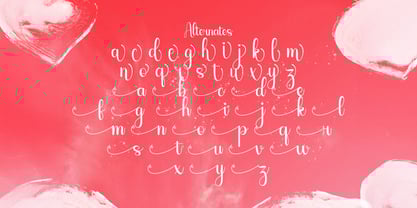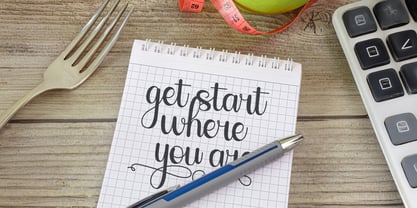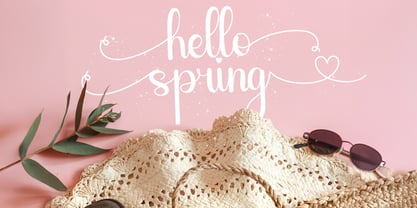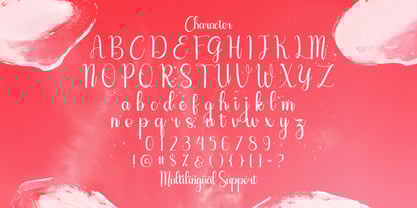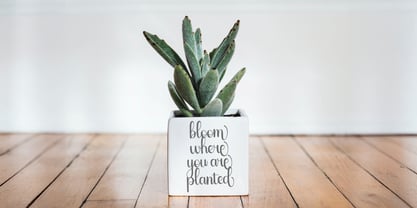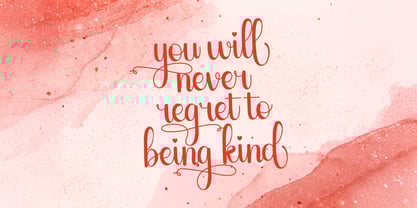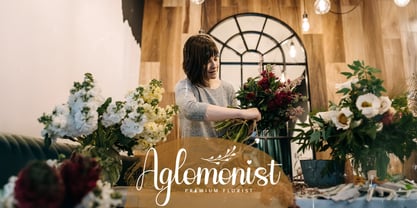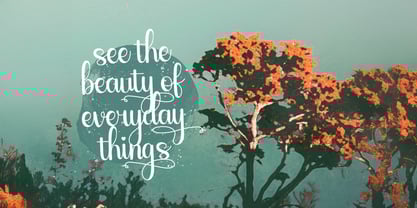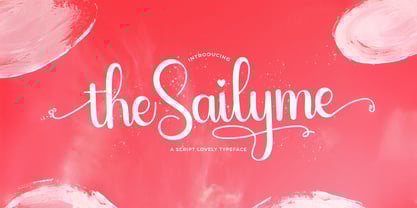
The Sailyme Font Family was designed by Virgiawan Listanto and published by Stringlabs Creative Studio. Sailyme contains 1 styles.
Sailyme is a beautifully delicate and elegant script font that captures the essence of love and charm. With its smooth, flowing curves and graceful letterforms, Sailyme brings a touch of warmth and sophistication to any design.